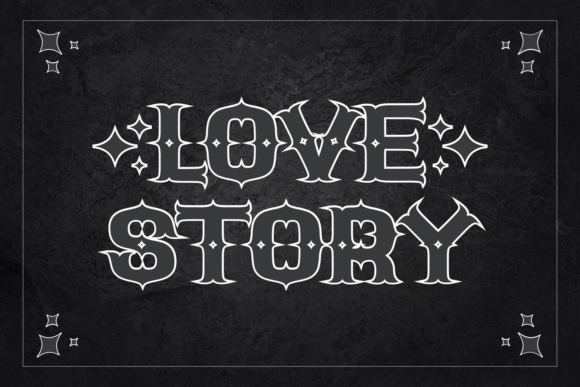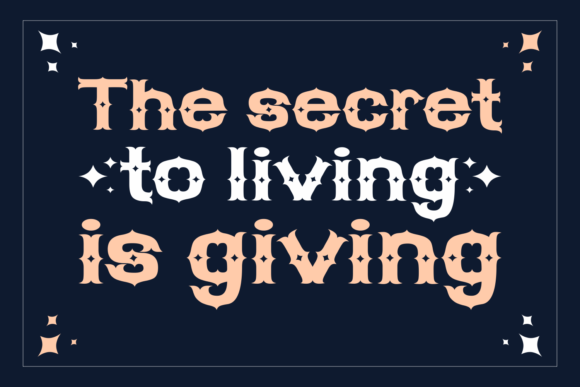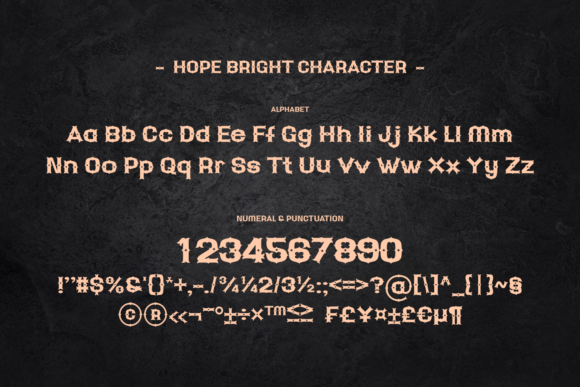
Introduction to Hope Bright Font
Have you ever been working on a creative project, pouring your heart and soul into every detail, only to feel like something’s missing? You’ve got the perfect design, but it’s just not standing out. That’s where the Hope Bright Font comes in – a bold, thick lettered, and vintage-looking blackletter font that’s sure to make your creation shine.
| 👤 Author | Rizkky (7NTypes) |
Designed to be a game-changer for designers, the Hope Bright Font is a valuable addition to any design resource library. With its high-quality design and transparent background, it’s perfect for a wide range of creative projects, from posters and flyers to digital art and more. And the best part? It’s available for a free download, making it an accessible and affordable way to elevate your designs.
Key Features of Hope Bright Font
- High-quality design resource for creative projects, suitable for various applications including logos, branding, and advertisements.
- Unique characteristics include its modern and elegant design, making it perfect for projects requiring a touch of sophistication and creativity.
Honest Review: Hope Bright Font
I recently stumbled upon the Hope Bright Font, and I’m excited to share my thoughts on this design resource. As a designer, I’m always on the lookout for high-quality fonts that can elevate my creative projects.
- ✨ High-quality design: The Hope Bright Font is well-crafted and looks great in both digital and print applications.
- ✨ Versatile: The font is suitable for a wide range of creative projects, from logos and branding to web design and publishing.
One limitation I’ve noticed is that the font may not be suitable for all typography-based projects. The design is quite bold and playful, so it may not be the best fit for more formal or conservative designs.
Overall, I’m impressed with the Hope Bright Font. Its high-quality design, versatility, and free availability make it an excellent addition to any designer’s toolkit. While it may not be suitable for all projects, I think it’s a great resource to have in your design arsenal.
How to Use Hope Bright Font
The Hope Bright Font is a high-quality design resource that offers a free download option for users. This font is perfect for creative projects that require a modern and elegant touch.
Tips for Getting the Most Out of Hope Bright Font
To get the most out of the Hope Bright Font, use it with a transparent background to give your design a clean and modern look. Experiment with different font sizes and styles to create a visually appealing design.
Common Use Cases for Hope Bright Font
The Hope Bright Font is commonly used for creative projects such as social media graphics, presentations, logo design, business cards, and brochures. It’s also great for designing documents, reports, and presentations that require a modern and elegant touch.
Is the Hope Bright Font suitable for print or digital use?
The Hope Bright Font is a versatile design resource that can be used for both print and digital projects. Its high-quality design and transparent background make it an ideal choice for creative projects that require a professional look. Whether you’re designing a brochure, a website, or a social media graphic, the Hope Bright Font is a great choice.